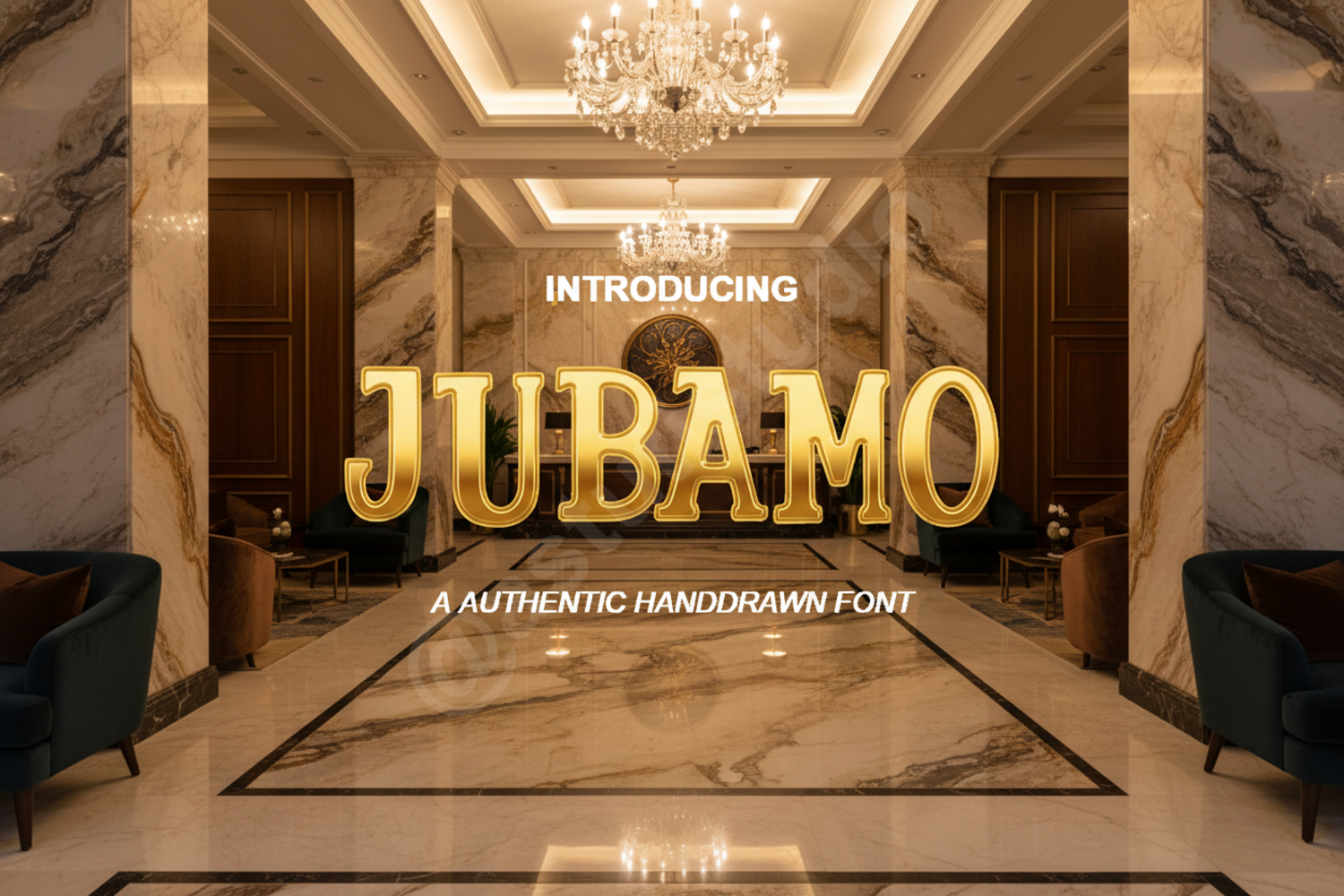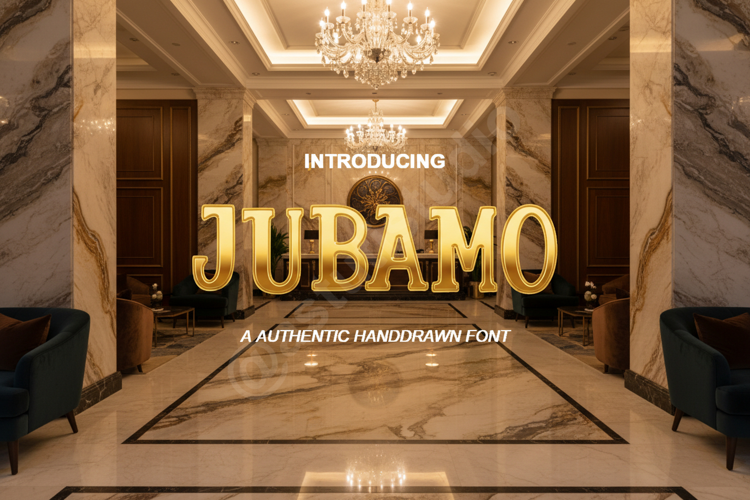
Jubamo - A Bold and Modern Display Font
Jubamo
Introduction:
Jubamo is a premium display font meticulously crafted to bring a sense of strength and modernity to your creative projects. With its clean lines and confident weight, Jubamo strikes the perfect balance between professional elegance and contemporary flair, ensuring your message is delivered with maximum impact.
Optimized Use Cases:
- Branding and Identity: Build a powerful visual presence with unique logos and corporate stationery.
- Social Media Marketing: Create high-engagement graphics for Instagram, TikTok, and Pinterest.
- Editorial and Publishing: Enhance magazine layouts, book covers, and digital articles with striking headlines.
- Product Packaging: Elevate your merchandise with clean, readable, and stylish typography.
- Advertising: Design effective posters, flyers, and digital banners that command attention.